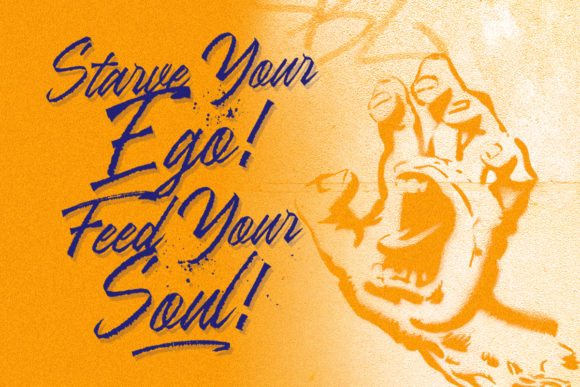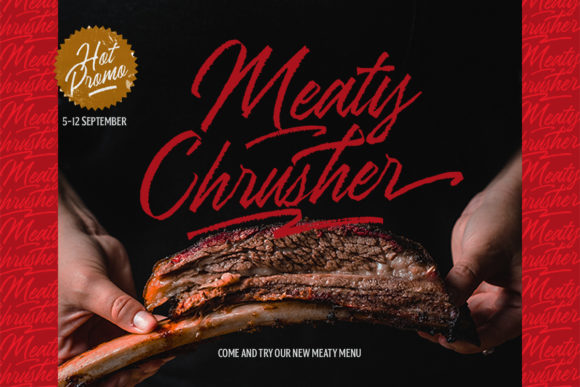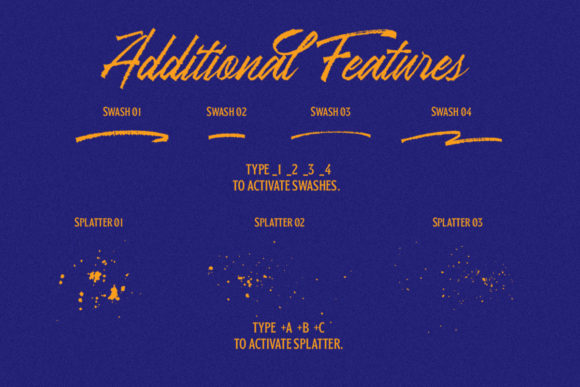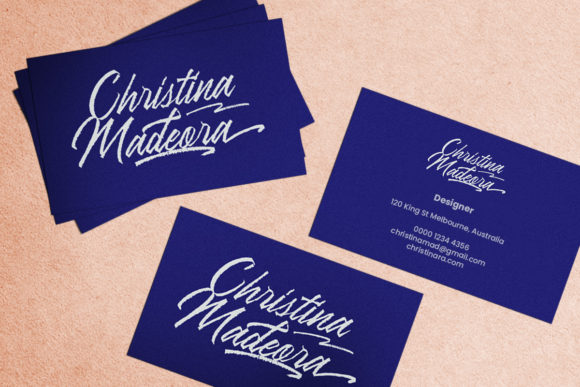
About Ranshell Font
Ranshell is a beautiful and flowing handwritten font. Artistic and unique, this font will elevate each of your creations! Ranshell is PUA encoded which means you can access all of the glyphs and swashes with ease!